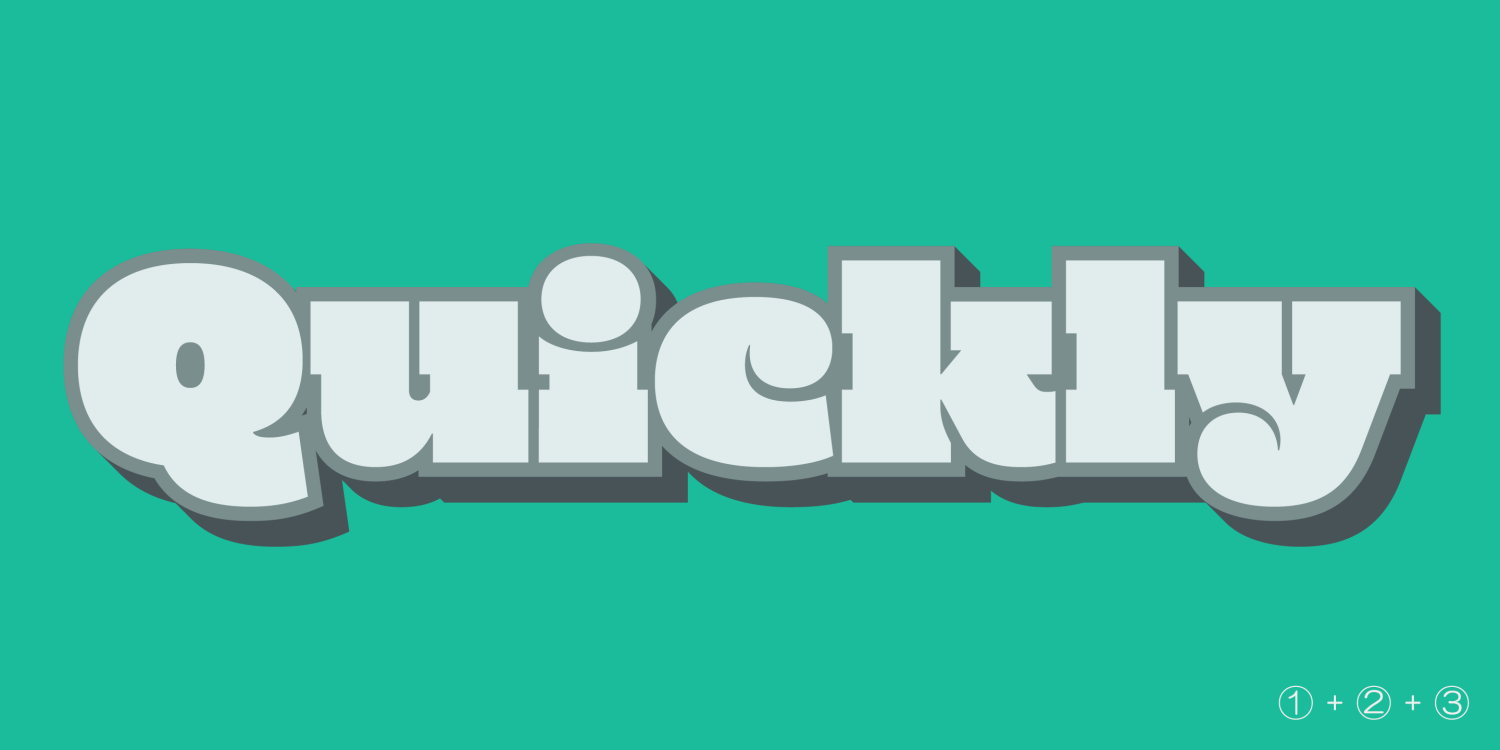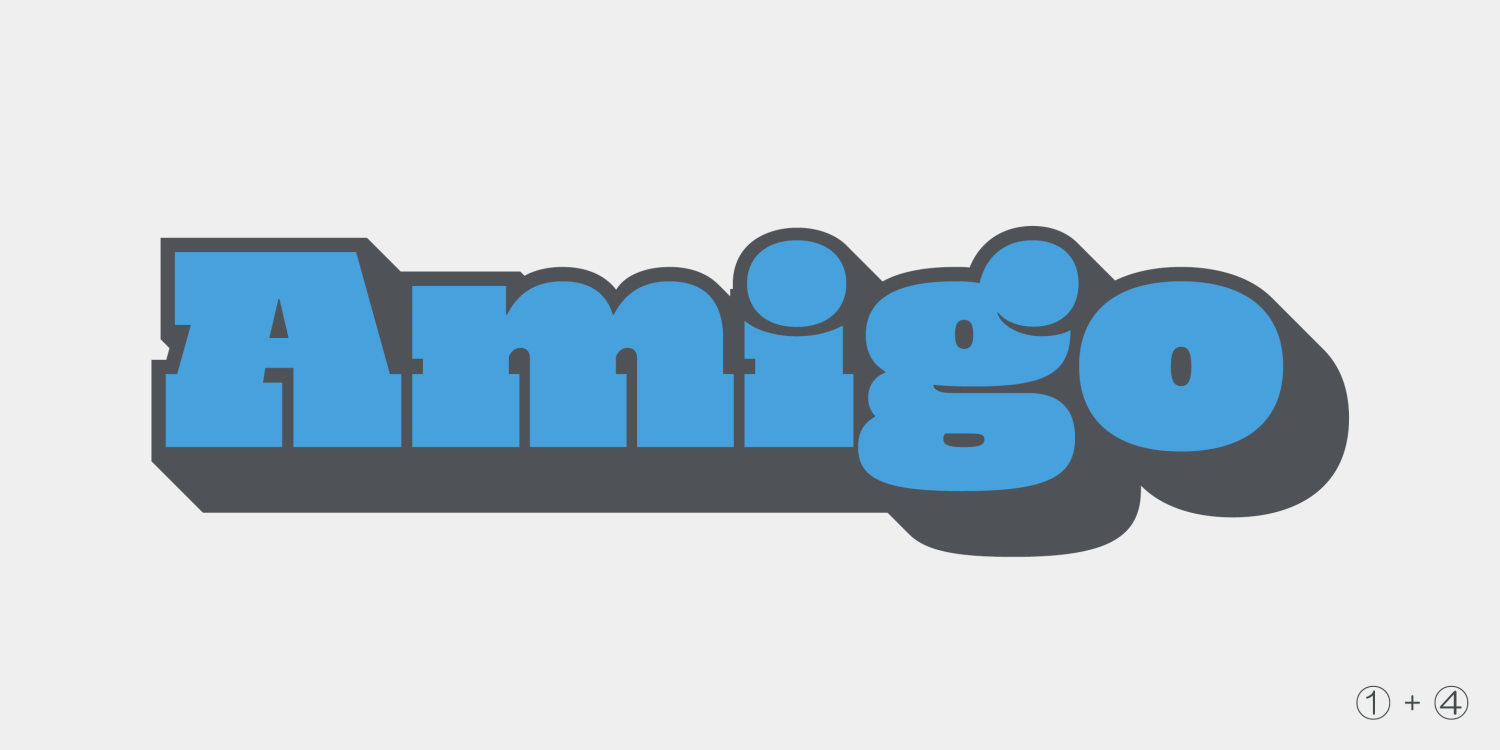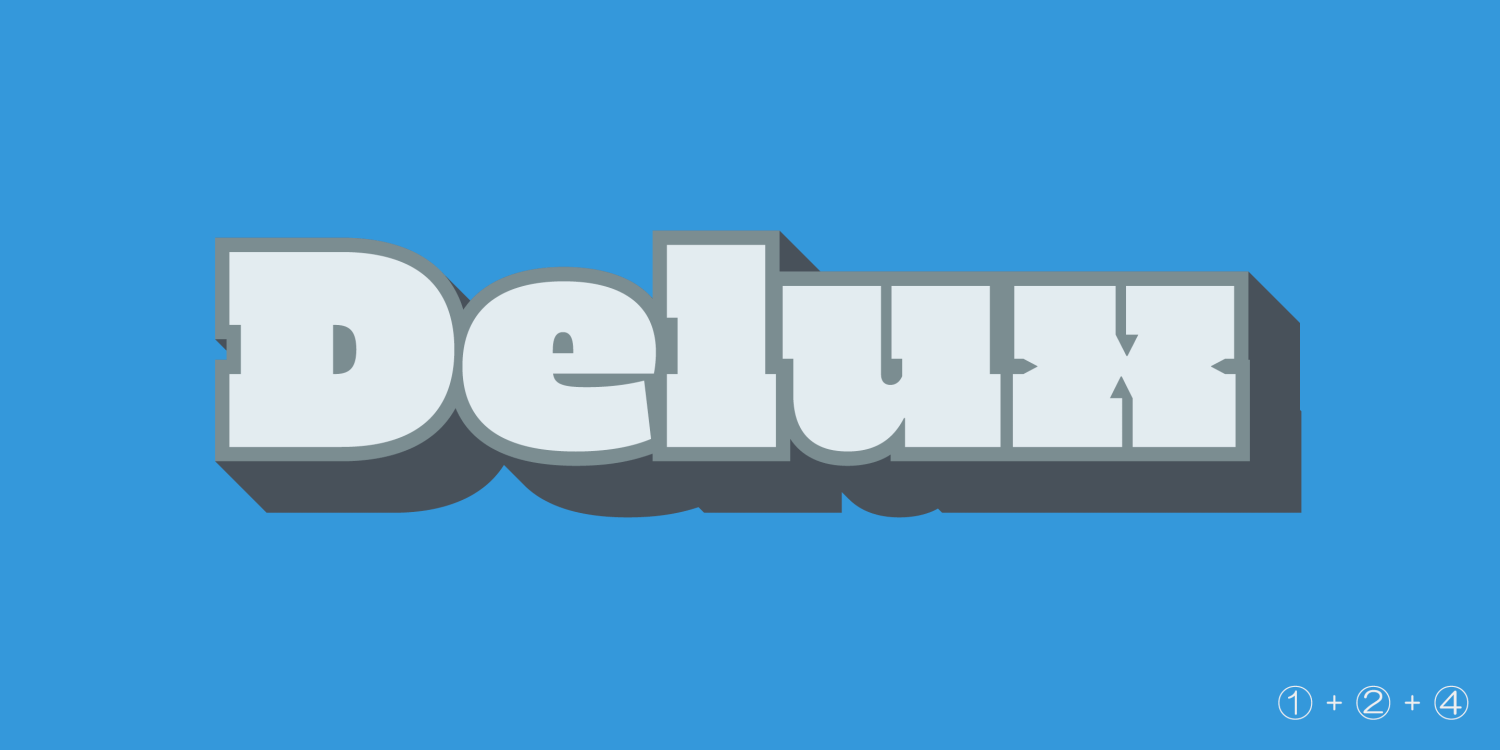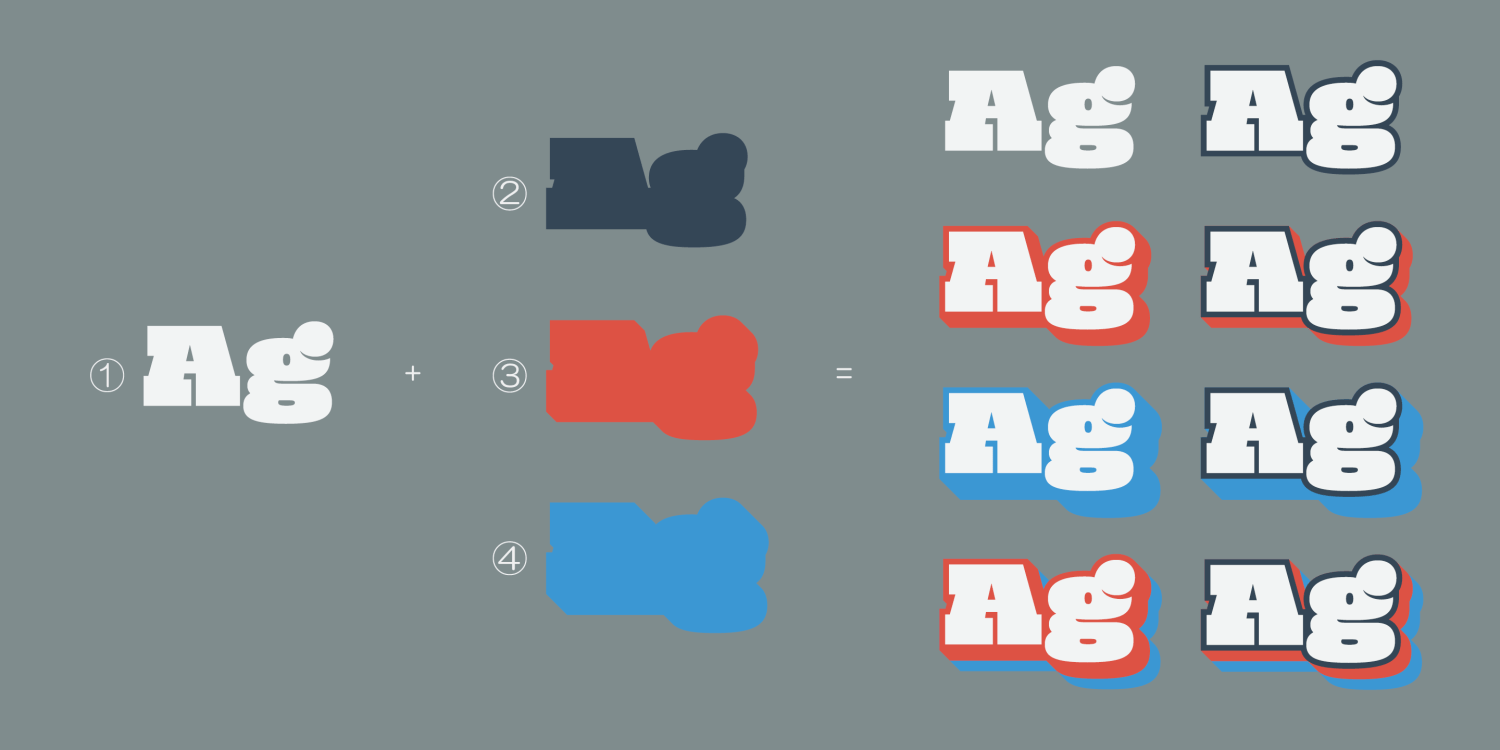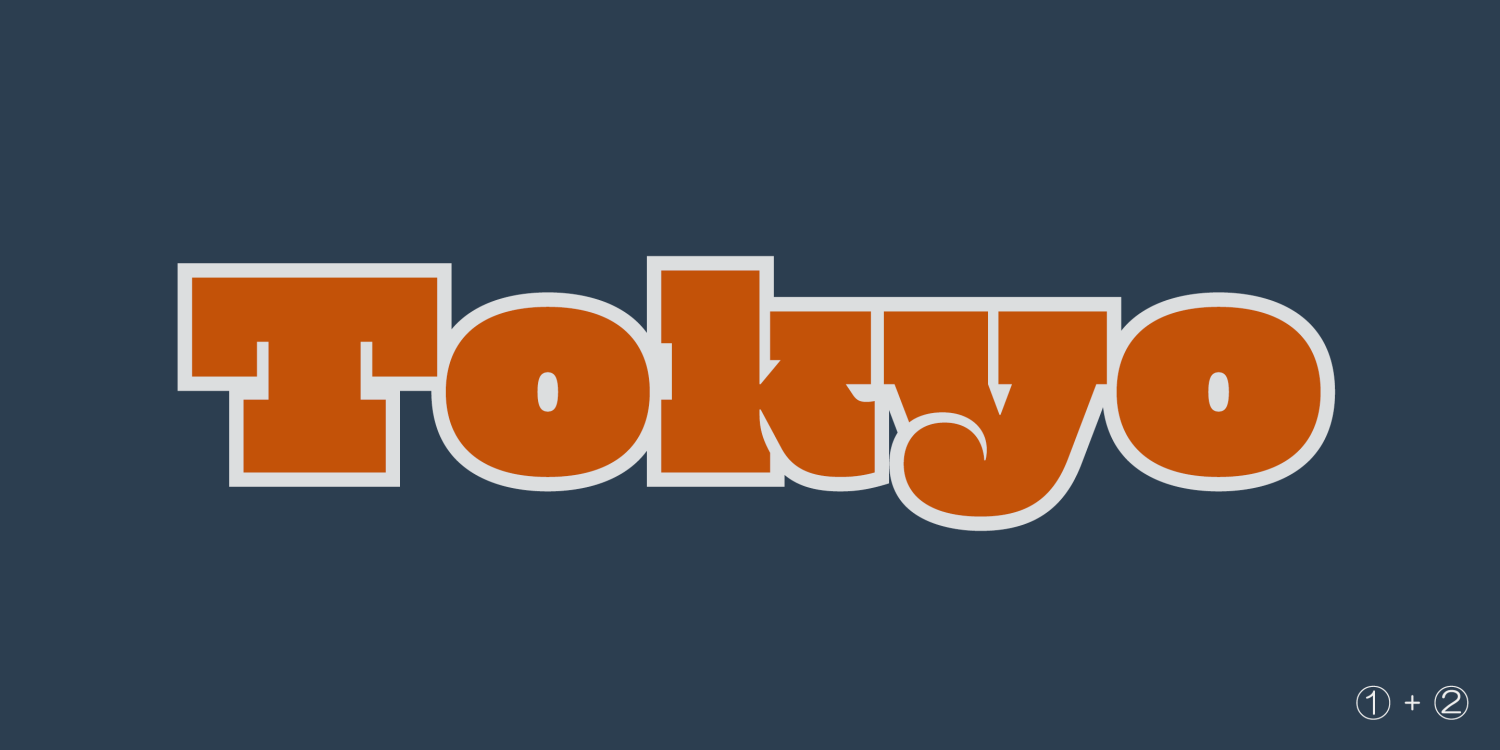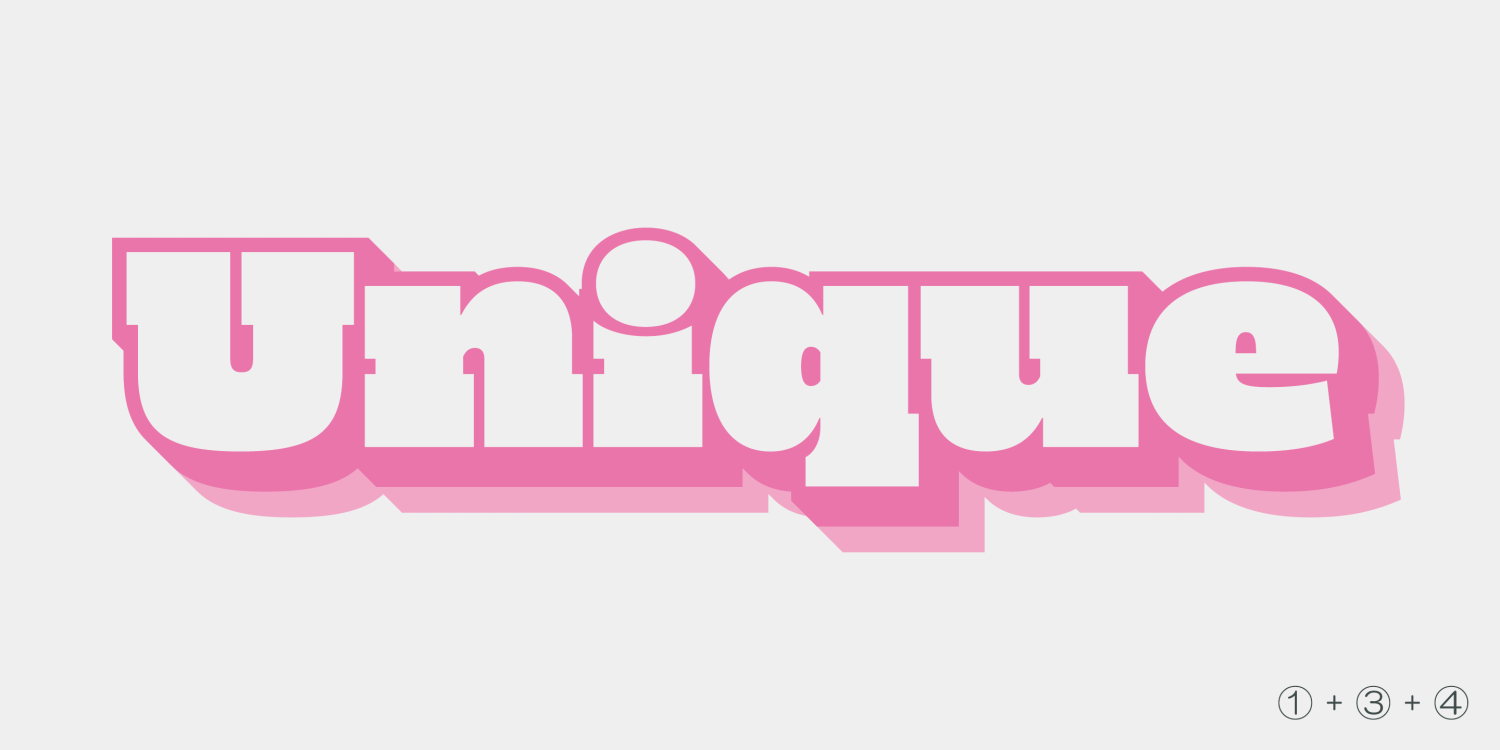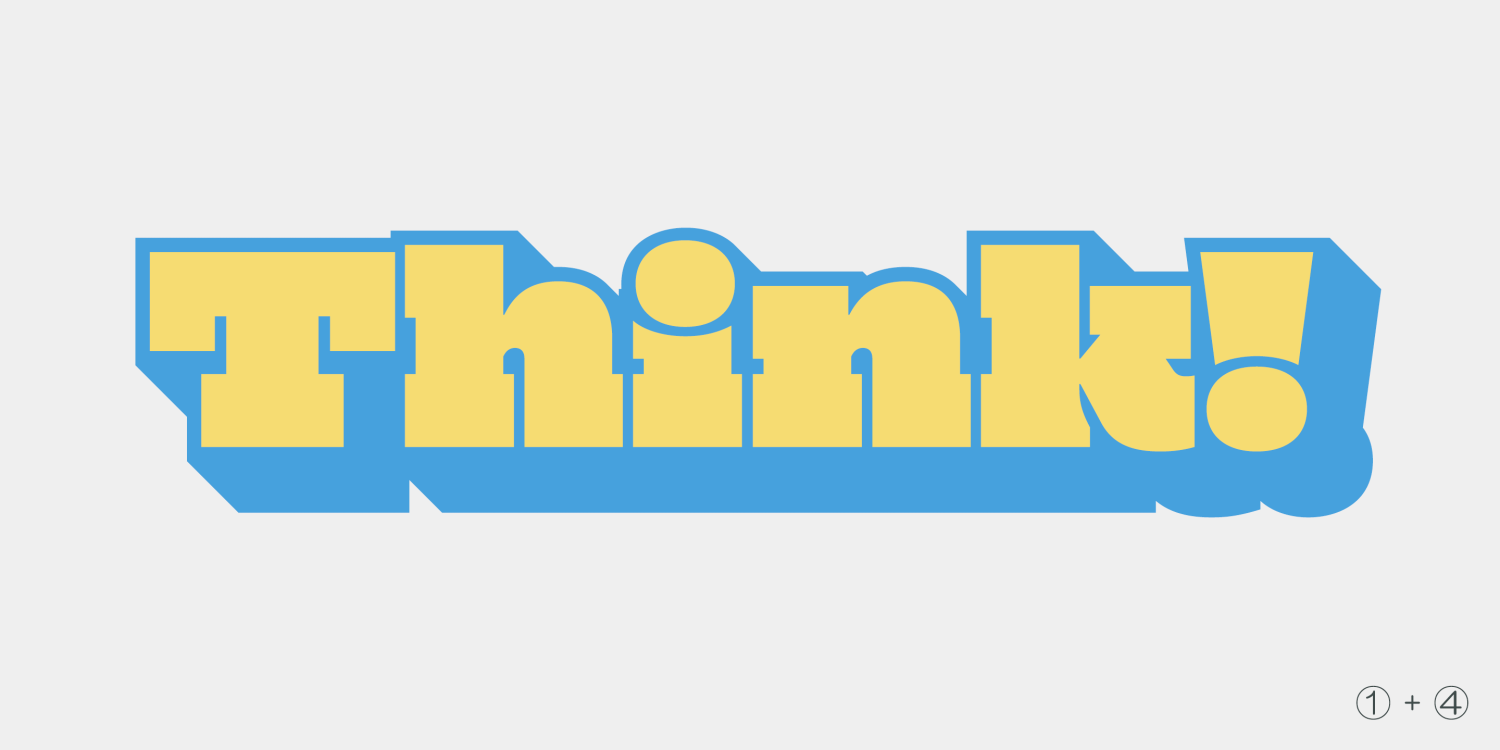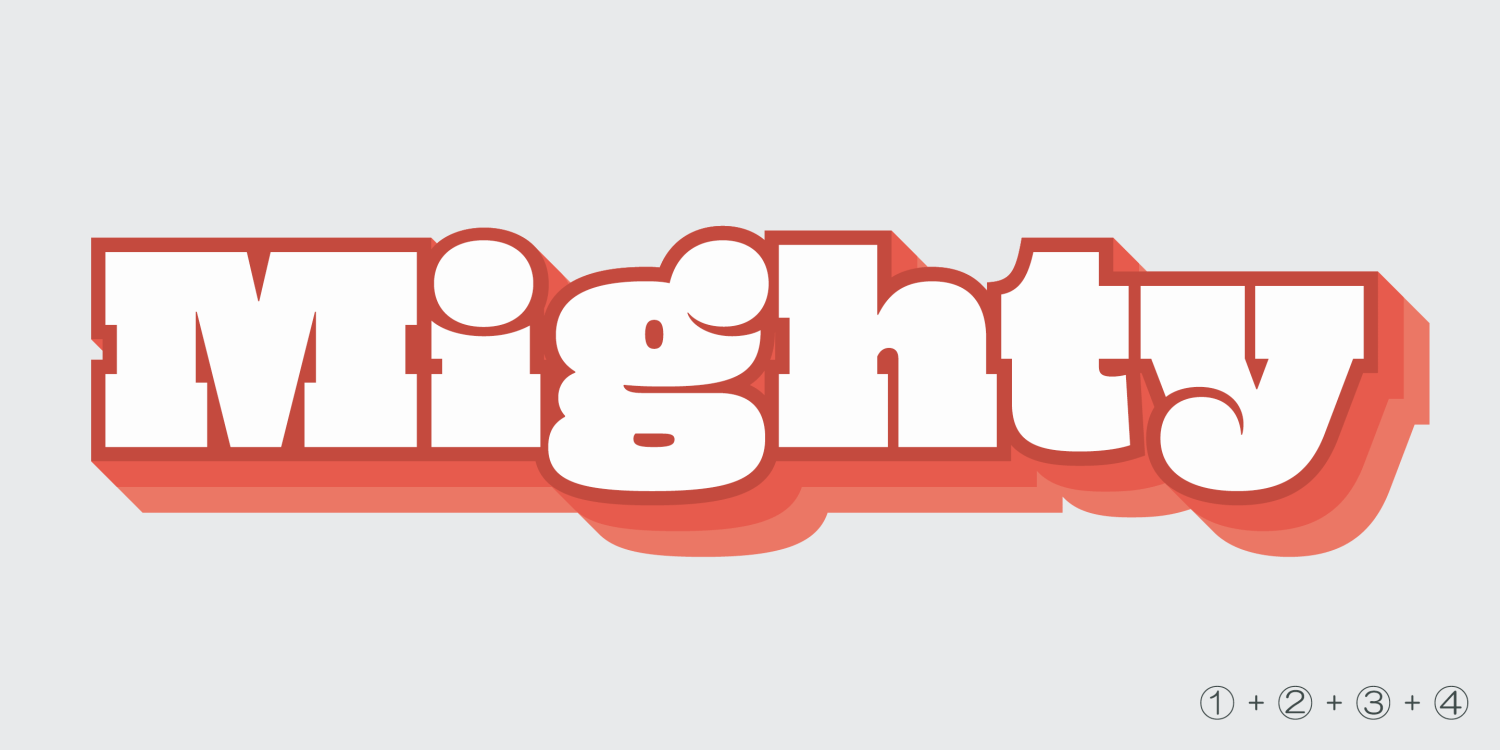
Mighty Slab
About Mighty Slab
Mighty Slab is a very heavy slab=serif font for titling, captions and logo. OpenType Format (.otf) with 531 glyphs! Extraordinary impact and super big x-height for more visual conspicuousness. Easily create four layer color type! Simply, Stack same…